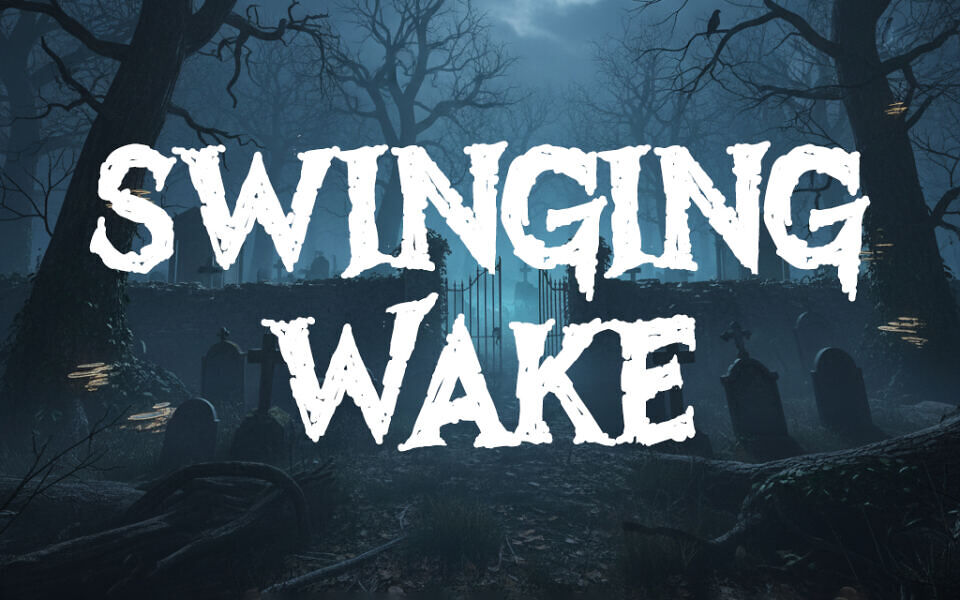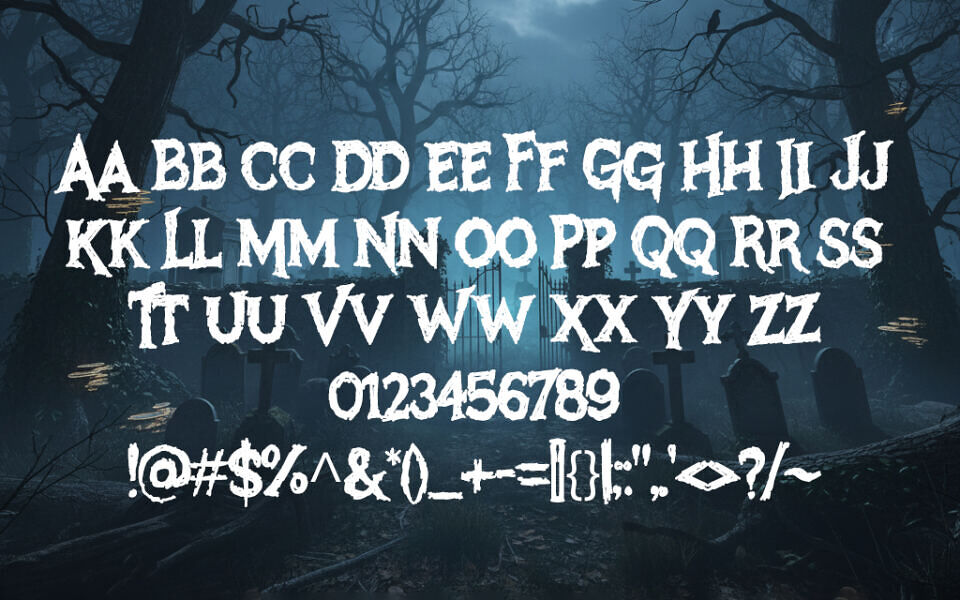
Swinging Wake Font captures the eerie charm of vintage horror and gothic design. Its jagged strokes, irregular edges, and dripping texture evoke the chilling atmosphere of graveyards and haunted nights. Perfect for Halloween posters, horror titles, spooky invitations, and dark-themed branding, this display font delivers a bold yet artistic presence.
With strong uppercase letters and hand-drawn authenticity, Swinging Wake combines fear and sophistication, bringing ghostly energy to any project. Ideal for designers seeking a dramatic, horror-inspired aesthetic.